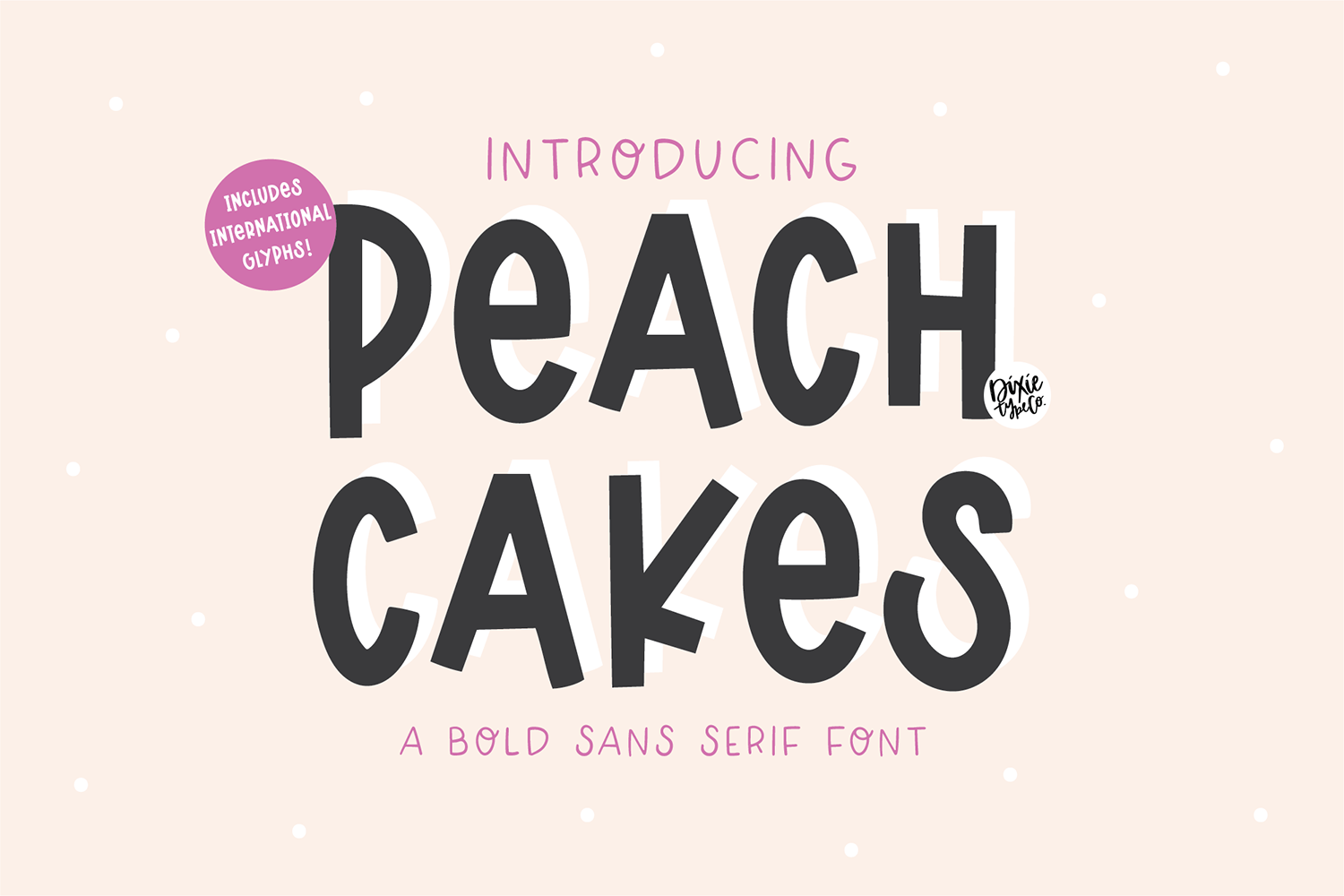
"Peach Cakes" hand-lettered script font.
Includes international characters!
{ A typographic font hand-lettered with love by Dixie Type Co. }
Peach Cakes is a bold hand-drawn font that is perfect for social media or crafty projects. Use it for t-shirts, birthday invitations, and more! This font includes numbers, basic punctuation marks, and international characters.